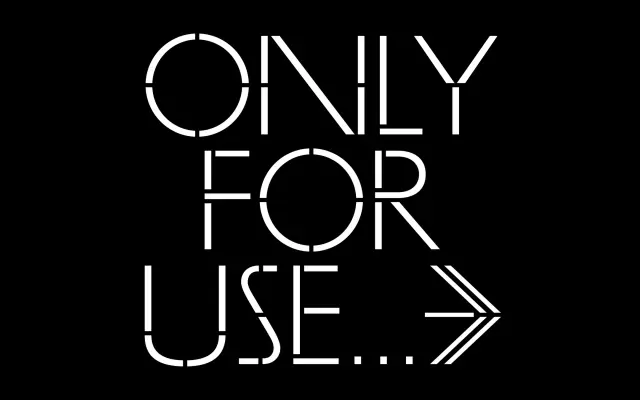
James
OTT Foundry · Eliott Grunewald · 2022
A unicase capitals-only display typeface reviving an alphabet from a 1970 Afro-American music album cover, available in Regular and Stencil versions.
Designed by Eliott Grunewald and released in 2022, James reinterprets lettering found on the cover of Dr. Willis James's 'Afro-American Music - A Demonstration Recording'. The design is marked by shifting proportions that alternate between narrow and very wide characters, creating strong rhythmic silhouettes across a block of text. Geometric curves on letters like S, C and O sit alongside distinctive connections in M, N and A, giving the face a convincingly contemporary feel despite its 1970 source material. The Stencil variant explores modular letter-forming in unexpected ways.
James is a unicase capitals-only display typeface with variable proportions, geometric curves and stencil variant, derived from a 1970 album cover alphabet and not suited to body text use.